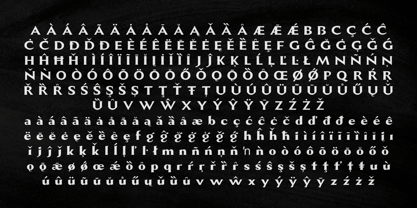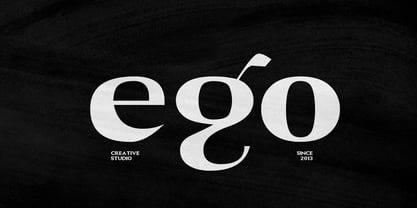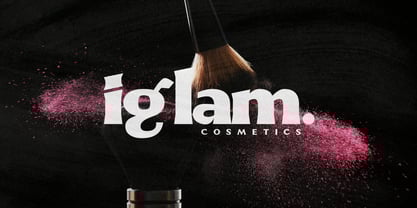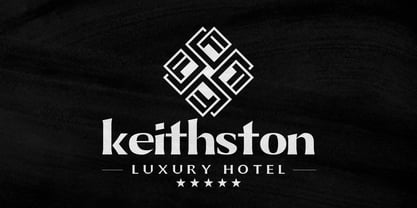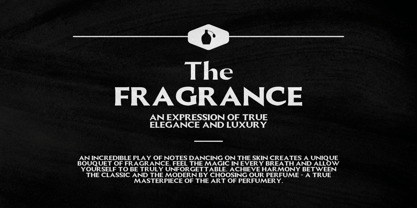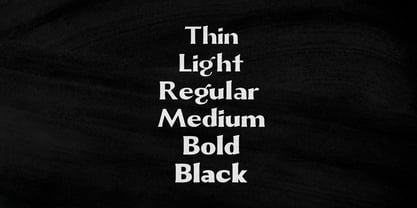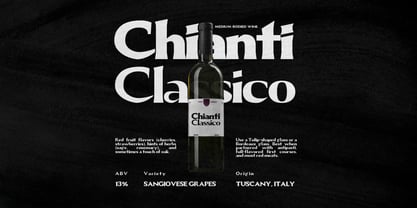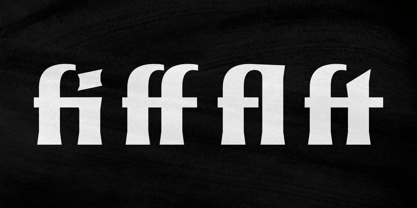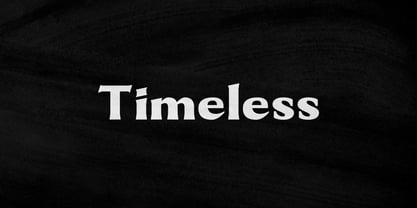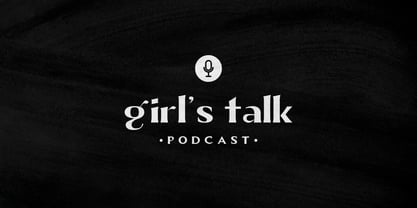
Muritoney
by Fikryal
The Muritoney Font Family was designed by Muhammad Fikry and published by Fikryal. Muritoney contains 6 styles and family package options.
Muritoney - Classy Serif Font
Experience the perfect harmony of elegance and versatility with Muritoney, a serif typeface designed to inspire and captivate. Featuring six exquisite styles—Thin, Light, Regular, Medium, Bold, and Black—Muritoney is an ideal choice for designers seeking a luxurious yet practical font for their projects.
Key Features of Muritoney:
• Six Distinct Styles: From the delicate Thin and Light weights to the impactful Bold and Black, Muritoney covers a spectrum of creative possibilities.
• Multilingual Support: Designed to support a wide range of languages, making it ideal for global audiences.
• Comprehensive Character Set: Includes uppercase, lowercase, numerals, punctuation, symbols, ligatures, and alternates, ensuring maximum design flexibility.
• Versatility: Tailored for premium branding, editorial layouts, event invitations, luxury packaging, and more.
Every detail of Muritoney is crafted to convey elegance and readability, making it a trusted choice for designers aiming to create a lasting impression.